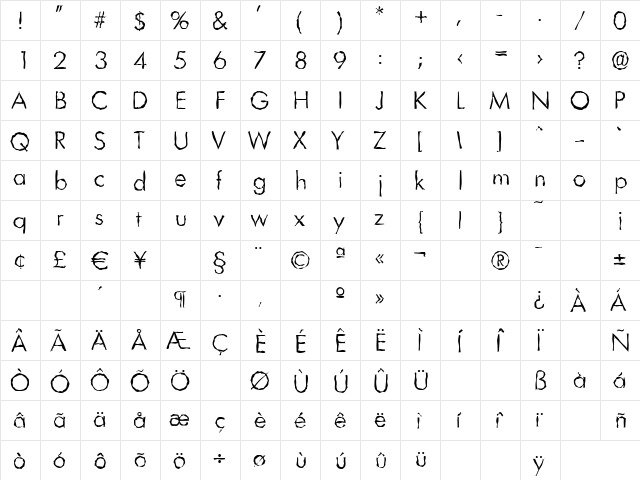
LimerickRandom-Light Regular
Design Context for LimerickRandom-Light Typeface
LimerickRandom-Light takes a measured approach to typography — its balanced proportions and neutral character make it a reliable workhorse for both digital and print work. Its slender proportions lend an understated elegance to any composition.